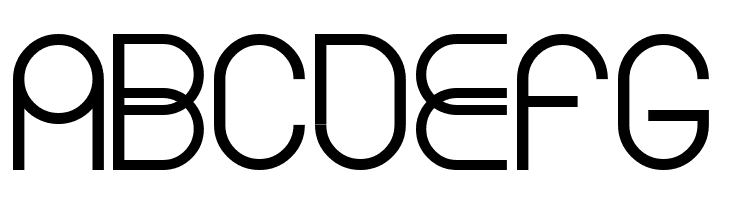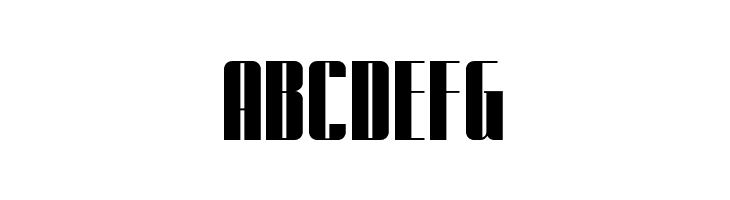
December Font
Ezzazebra - Adhreza Brahma - www.behance.net/adhreza
A whimsical and artistic font with elongated, narrow characters and decorative loops.
Zaun Font
Font by Ezza Adhreza
A tall, condensed font with bold, geometric letterforms and a modern industrial style.
Barbarossa Font
Ezzazebra - Adhreza Brahma - www.behance.net/adhreza
A bold, geometric font with high contrast and a Gothic-inspired style.
Expatriate_Promo Font
Ezzazebra - Adhreza Brahma - www.behance.net/adhreza
A bold, geometric font with tall, narrow characters and sharp edges.
VOL Font
A modern, geometric font with clean lines and a minimalist style.
Bite of Crab Font
Ezzazebra - Adhreza Brahma - www.behance.net/adhreza
A geometric, angular font with a modern and futuristic style.
Libre Font
A futuristic, geometric font with angular, multi-line characters.
Variol Font
Ezzazebra - Adhreza Brahma - www.behance.net/adhreza
A decorative, geometric font with elongated, angular letterforms.